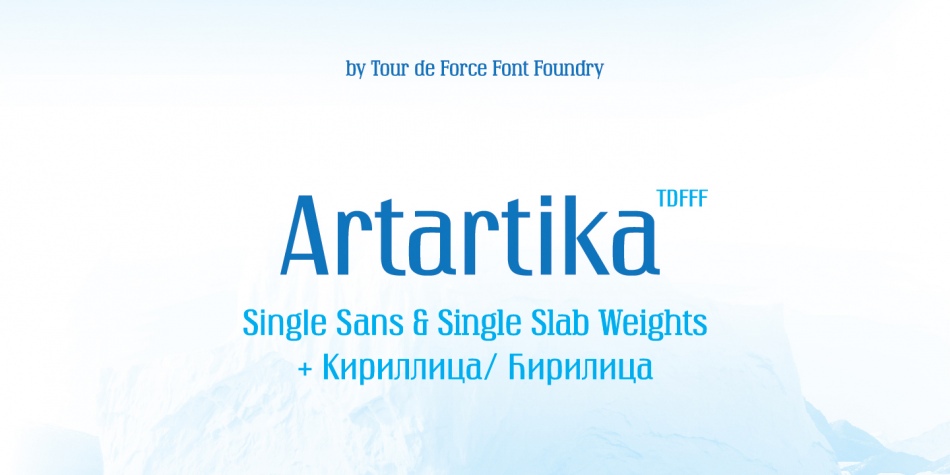
Artartika Font
Artartika Font is perfect for contemporary art gallery branding, experimental design studio logos, avant-garde fashion labels, creative arts education materials, modern sculpture exhibition graphics, innovative digital art platforms, artistic residency program signage, contemporary museum publications, creative agency presentations, and cutting-edge cultural institution communications. This striking typeface excels in applications where artistic innovation, creative expression, and contemporary cultural dialogue are fundamental brand characteristics.
What makes Artartika Font exciting is its bold fusion of Arctic minimalism with artistic experimentation that creates a unique aesthetic bridging cold geometric precision with warm creative expression. The font features angular letterforms with crystalline details and systematic construction that evokes ice formations while maintaining the expressive freedom essential for contemporary art applications. Its distinctive character immediately communicates both intellectual rigor and creative boldness, making it perfect for institutions that push artistic boundaries while maintaining scholarly credibility.
The Artartika Font family typically includes Regular and Bold weights, often accompanied by experimental alternates with enhanced artistic characteristics and creative ligatures that showcase its innovative design philosophy. Many versions include stylistic variations that reflect different contemporary art movements, decorative elements inspired by geometric abstractions, and special characters that celebrate modern artistic expression. Some collections feature outline variations and creative effects that amplify the font's experimental nature for exhibition graphics and artistic installations.